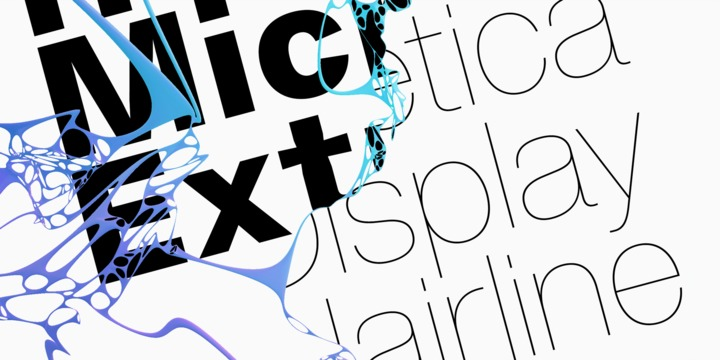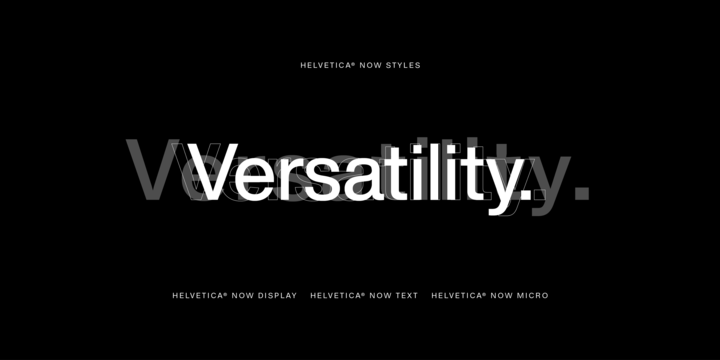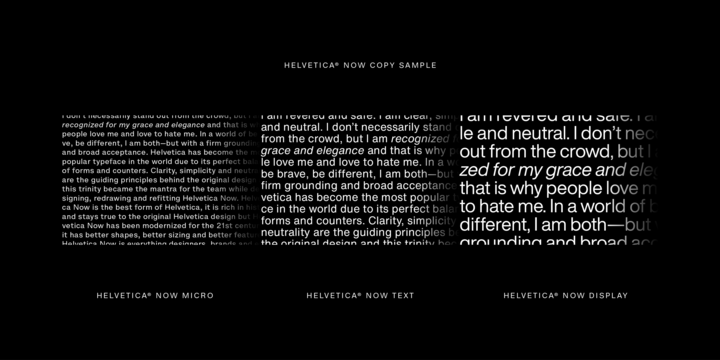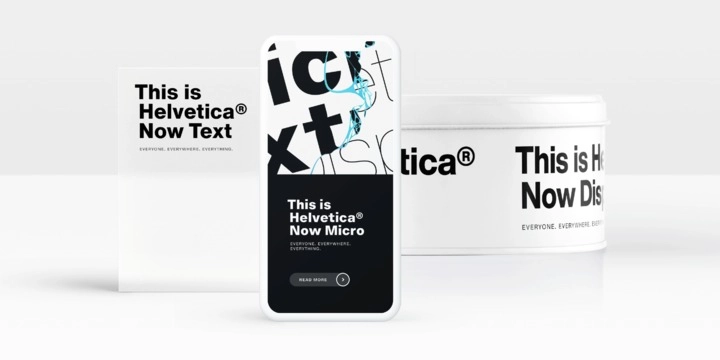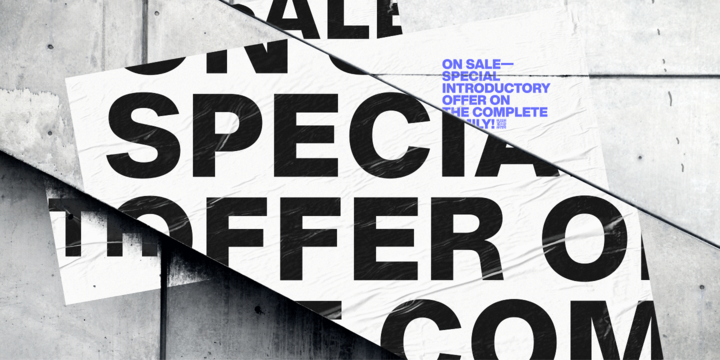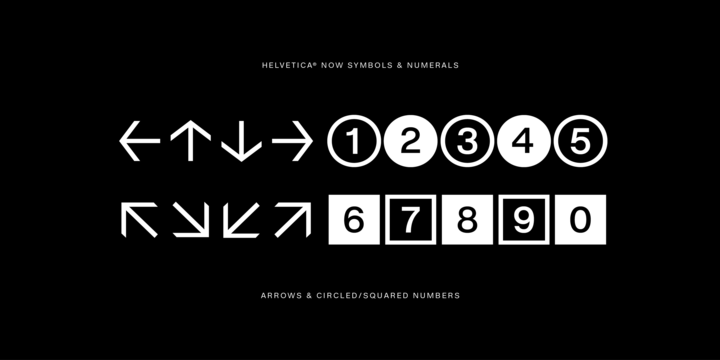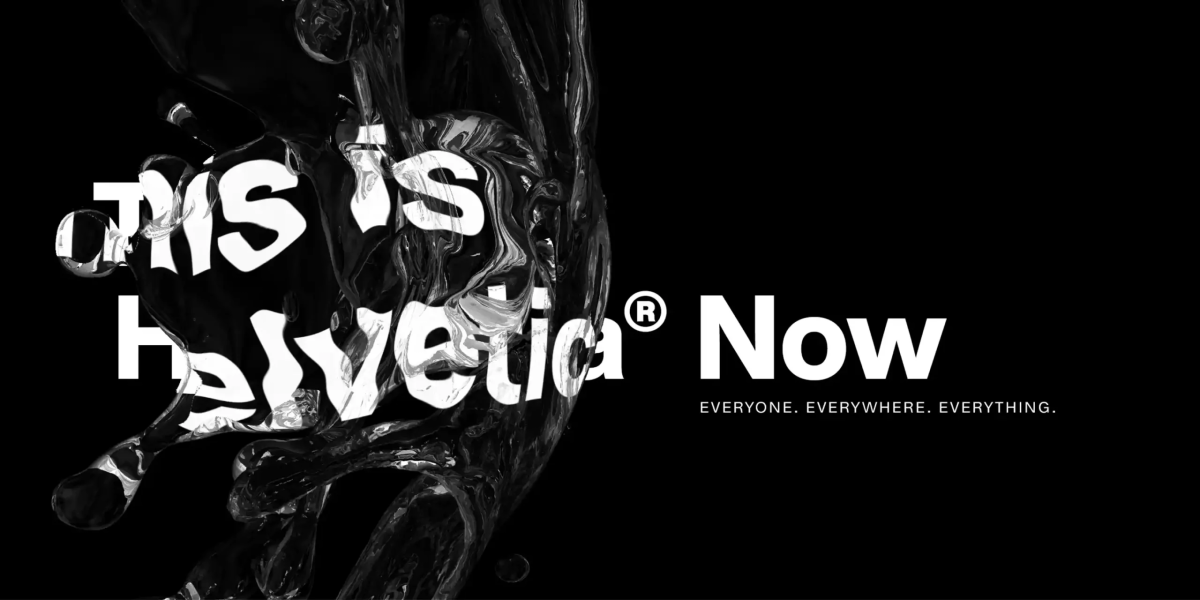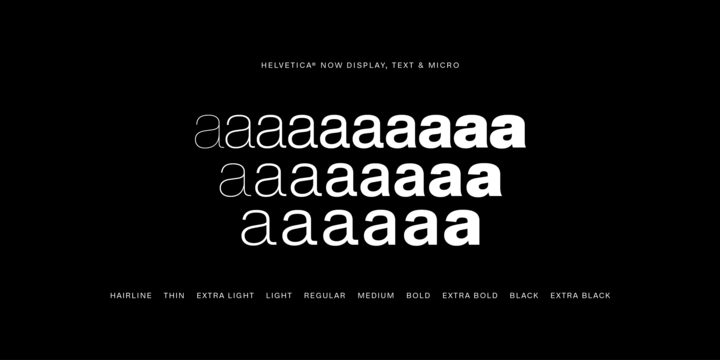
Helvetica Now Font
Helvetica has undergone a meticulous redesign in this comprehensive new release. While staying true to its Swiss roots of clarity, simplicity, and neutrality, this edition refines the iconic typeface for today’s design and branding landscapes. The Helvetica Now collection boasts 96 fonts, categorized into three distinct optical sizes: Micro, Text, and Display, each available in two widths. Every variant is meticulously crafted to excel in its intended size range.
The expansive Display variants emphasize Helvetica’s nuances, optimized for impactful headlines. Meanwhile, the Text sizes prioritize legibility with bolder strokes and thoughtfully spaced characters. Addressing historical challenges, the Micro versions tackle Helvetica’s previous limitations in extremely small sizes. By simplifying and amplifying its features and introducing generous spacing, Helvetica Now ensures impeccable legibility even at minuscule scales and in low-resolution scenarios.
Additionally, the collection offers a rich array of alternates, empowering designers to customize Helvetica’s aesthetic. Noteworthy adaptations include a distinctive lowercase ‘l’ to distinguish it from the uppercase ‘I’, a rounded ‘G’, a more linear ‘R’, a singular-story ‘a’, and a ‘u’ devoid of its typical serif tail. Such modifications were once manually adjusted by designers to achieve unique display compositions with Helvetica.
Charles Nix, Monotype’s Type Director, praises Helvetica, stating, “Helvetica sets the benchmark. Utilizing it implies that your brand epitomizes excellence and aspiration. Its inherent simplicity is its strength.”